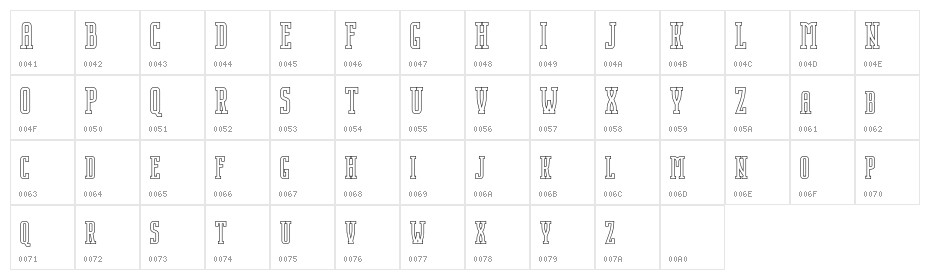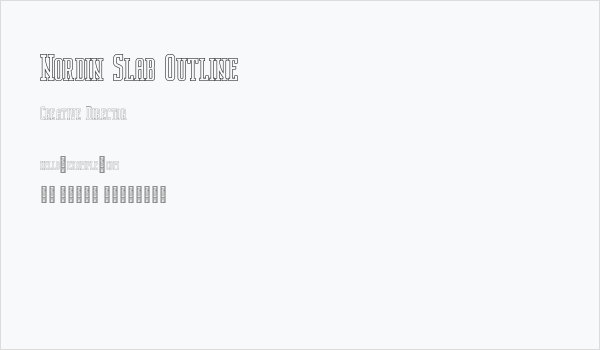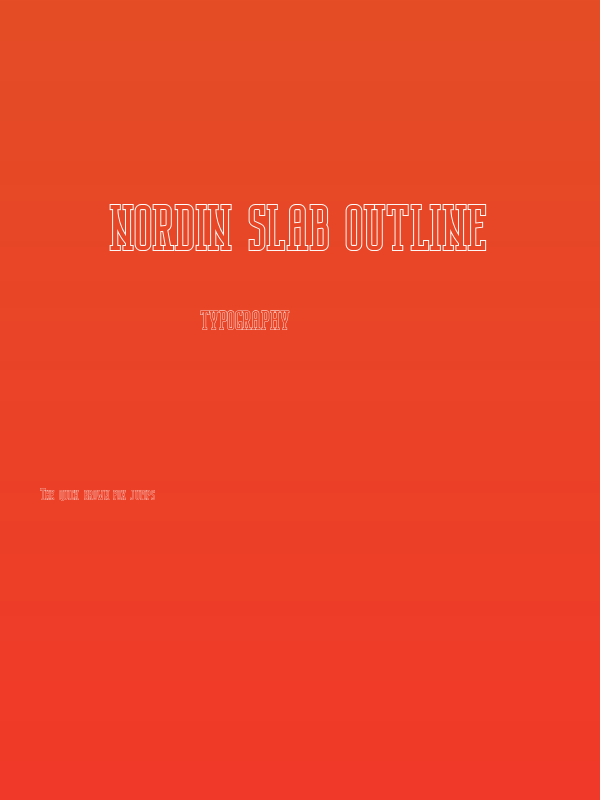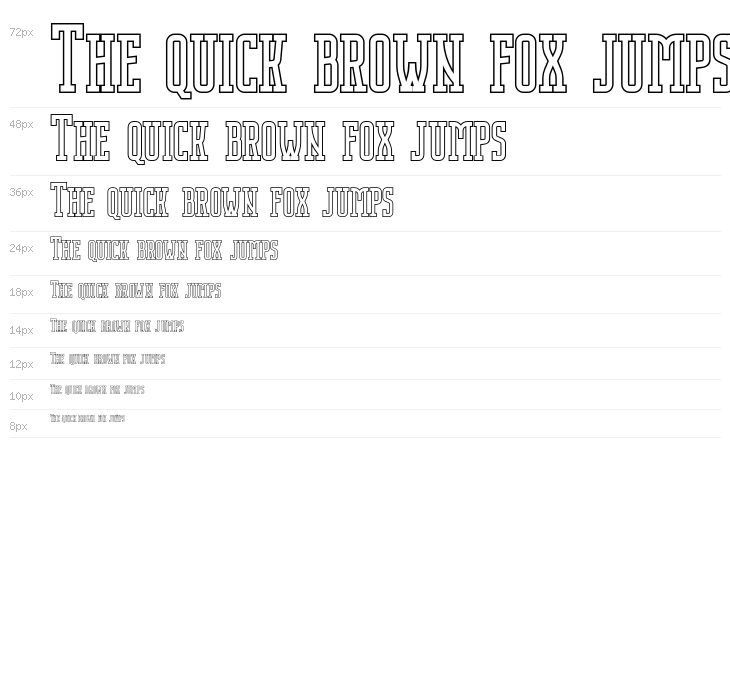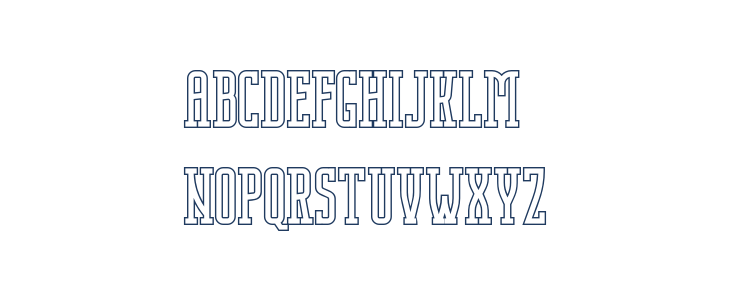
Nordin Slab Outline Font
Nordin Slab Outline Description
This font features a bold, outlined style with a slab serif design. The uppercase letters are prominently displayed with a strong geometric structure, giving them a modern and impactful appearance. The outlines create a sense of depth and dimension, making the letters stand out. The font lacks lowercase letters and numerals, focusing solely on uppercase characters. The slab serifs add a touch of classic elegance, while the outline effect provides a contemporary twist. This combination makes it suitable for eye-catching designs that require a bold statement.